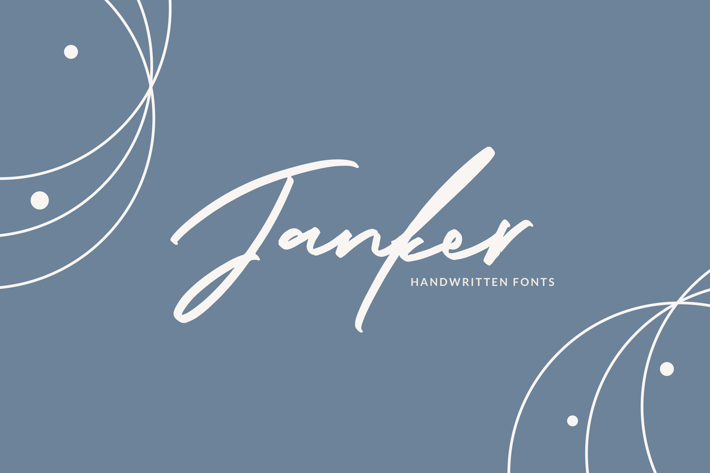
Janker - The Handwritten Fonts
blkspace
The emergence of Janker with its authenticity and modernity will make all of your design needs more interesting. This original handwritten curve makes the font tempting the wearer.
Janker has common characters in it, such as uppercase letters, lowercase letters, numbers, and punctuation. In addition to these characters, Janker also has special characters, such as ligature and other characters from upper and lower case letters. And don't forget, Janker has multilingual characters in it, so it's easy for you who want to use another accent.
You have to know, Janker can be a versatile font, can be made into a logo, design social media campaigns, to be used as magazine covers, brochures, and even t-shirts. Janker has a webfont, if you need a font used to design your website, you only need to open and choose Janker webfont.